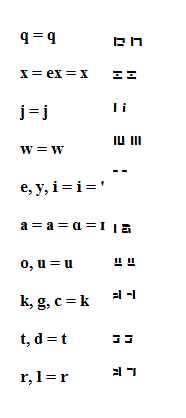
• The "All God's Script" is a script I found in my dreams when I was about 4 years old. It amazed me of how it was written. The Script can't use English very well but has a mysterious way of writing. It is very beuatiful and very mysterious. I liked the way I made it here. I am now going to use it for everyday life!
This script has been in my dreams ever since and now I'll be using it for everyday life! Than God, we all have tools and writing systems!
Here is the alphabet!
And here is the other!
I have just finshed this...